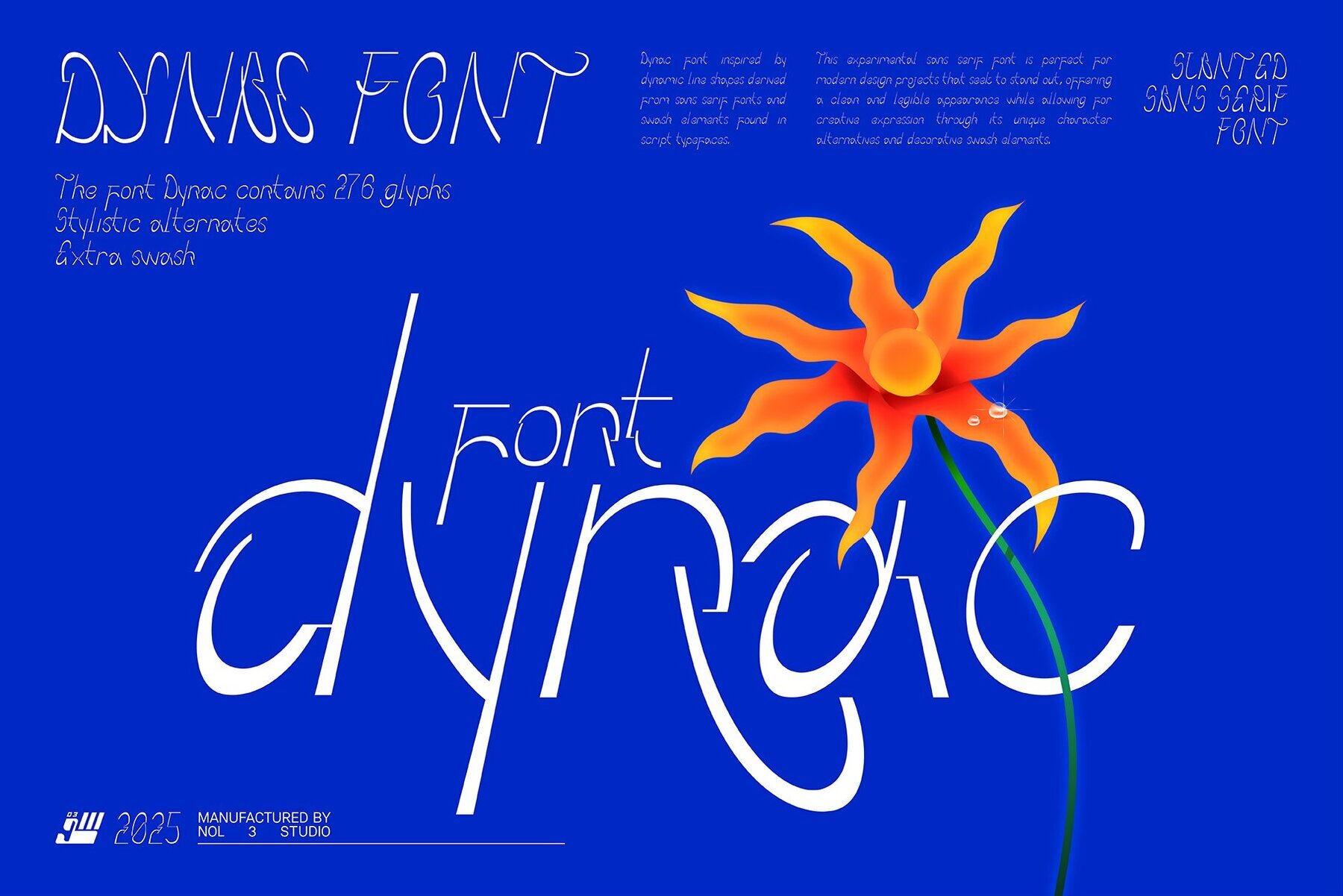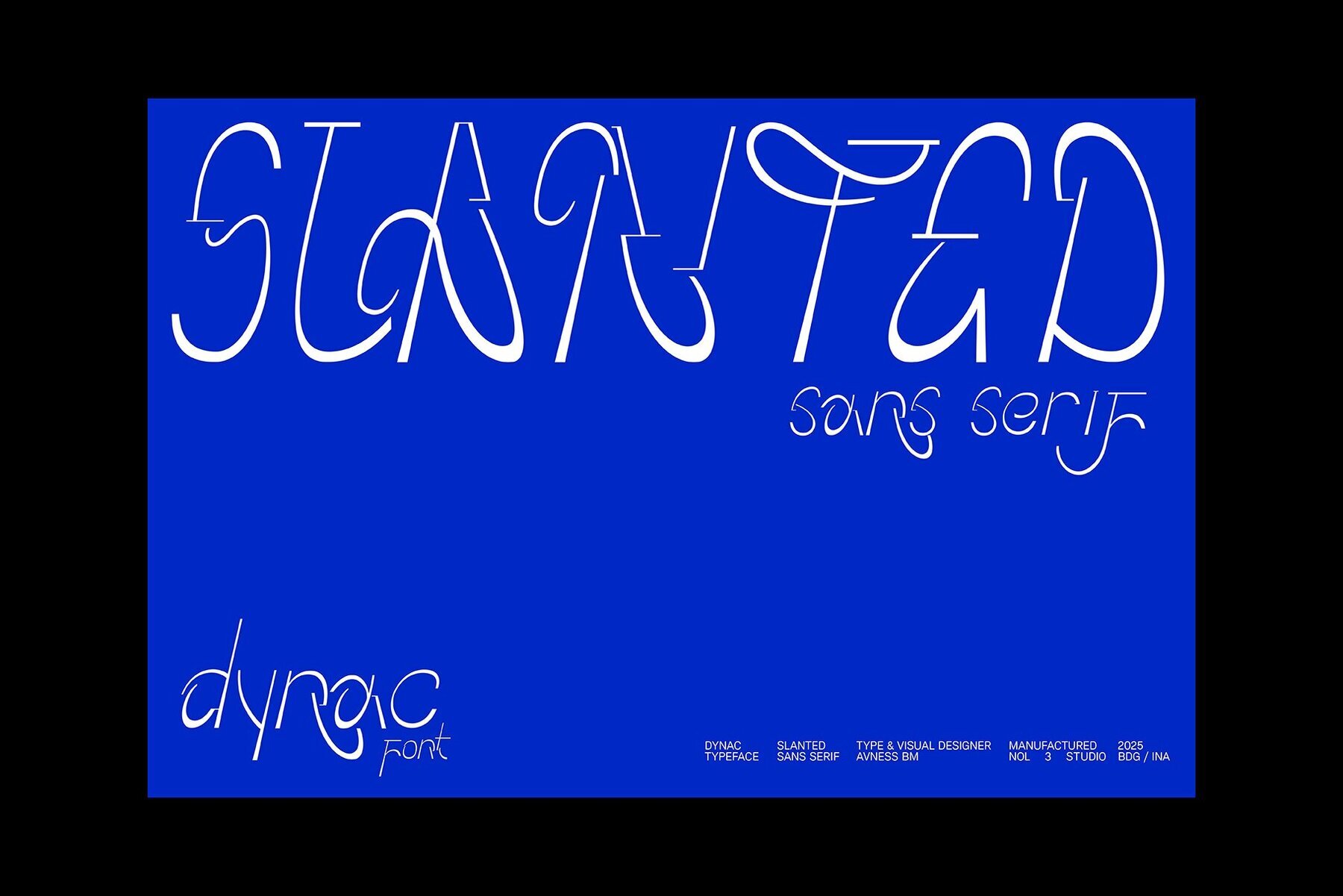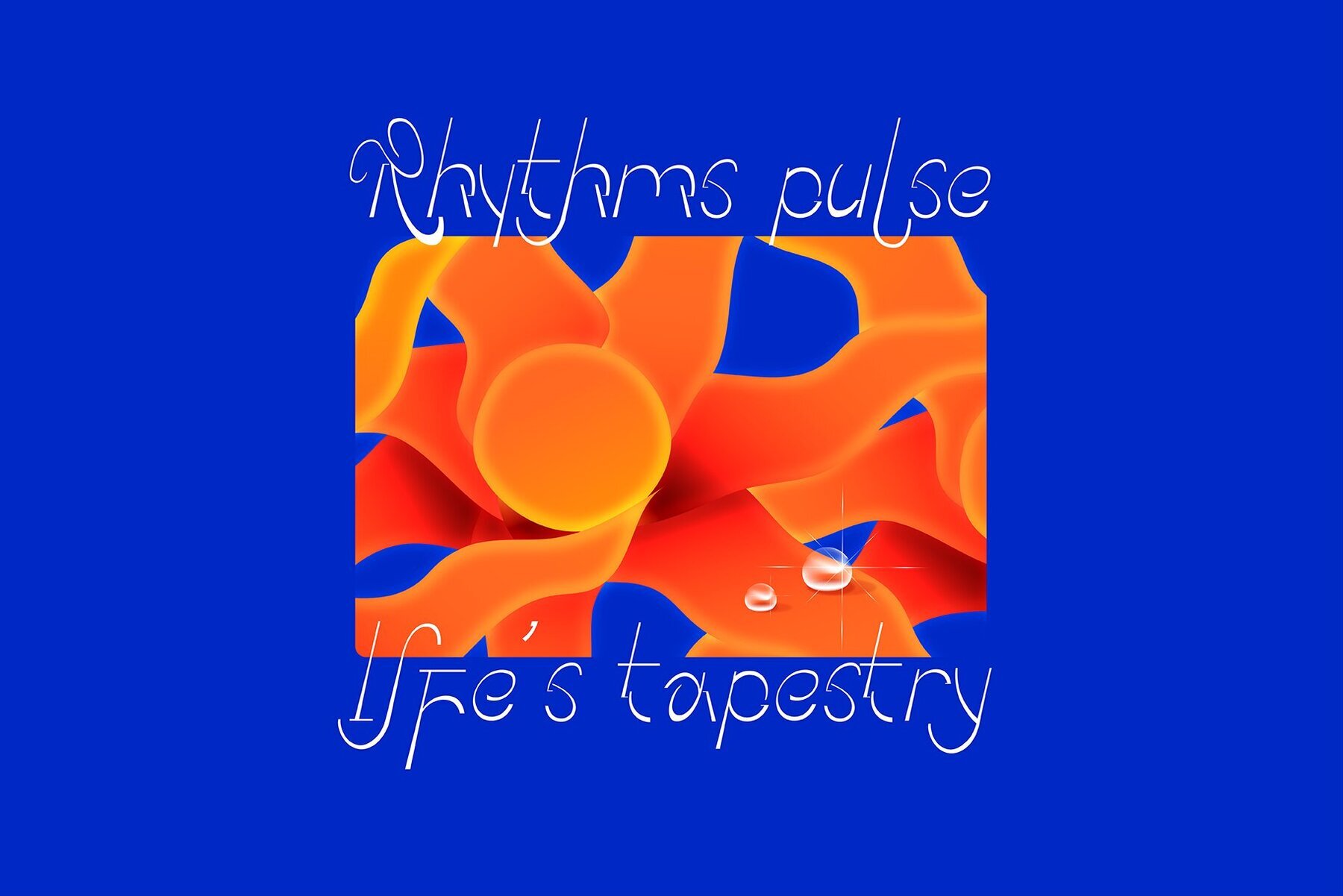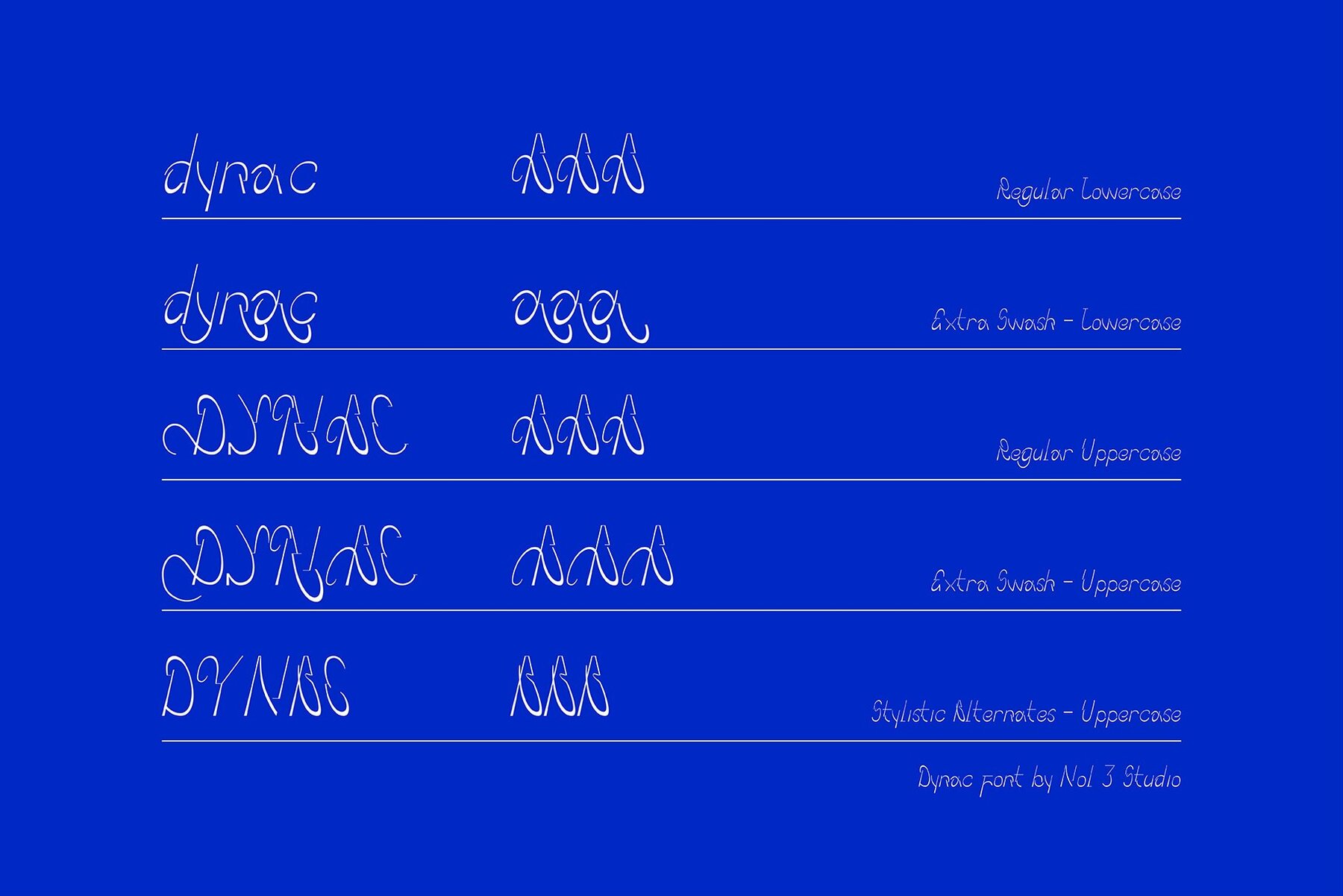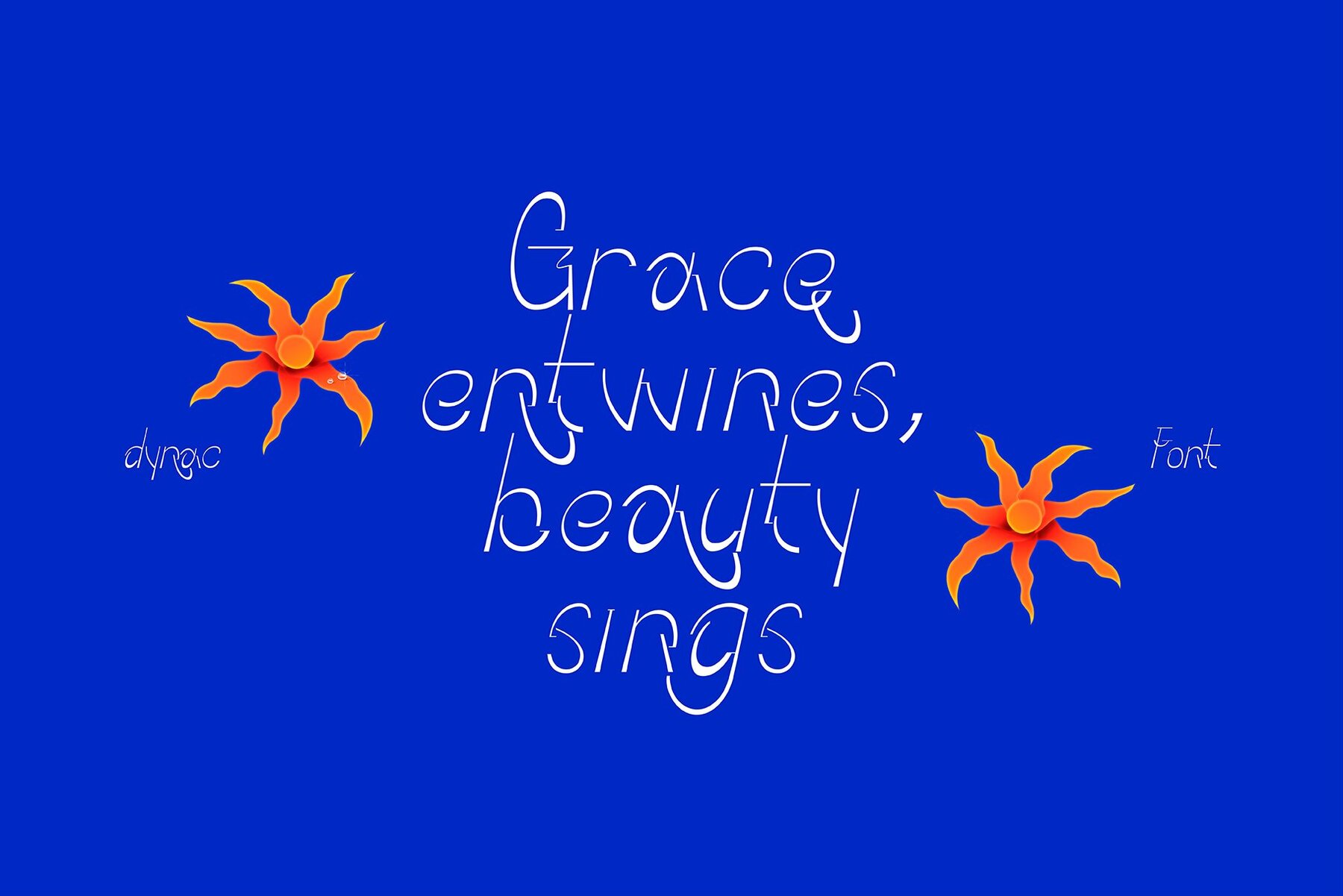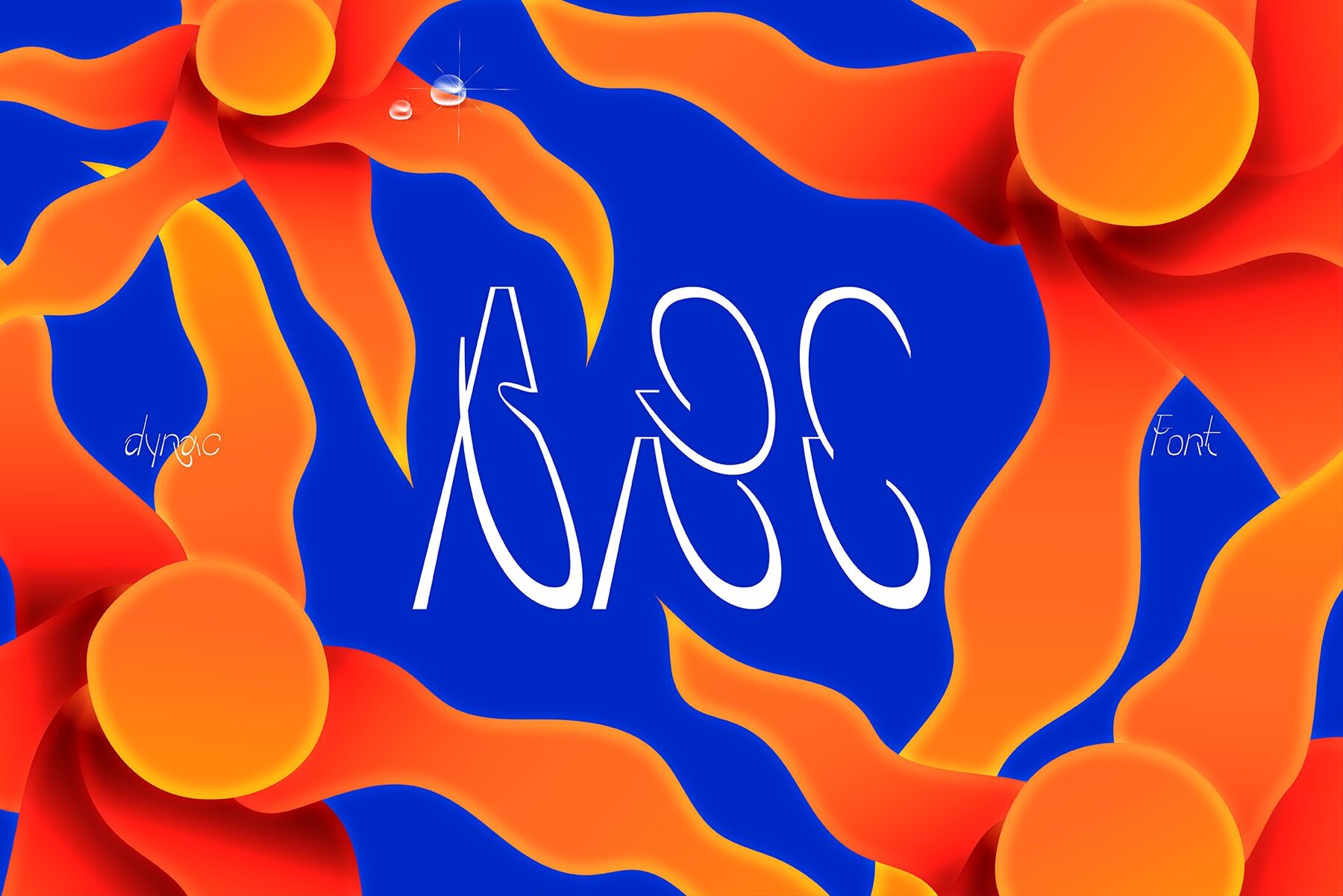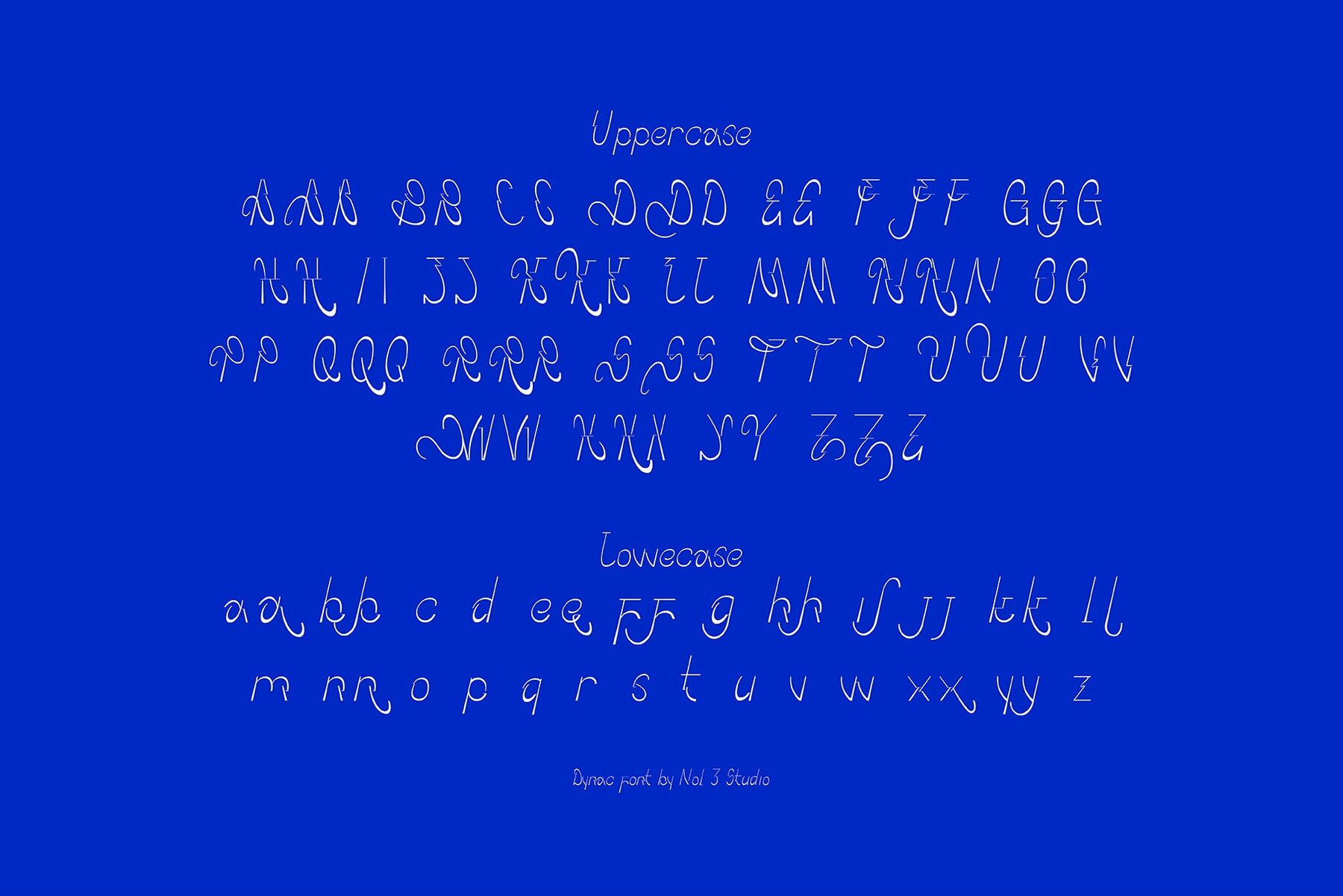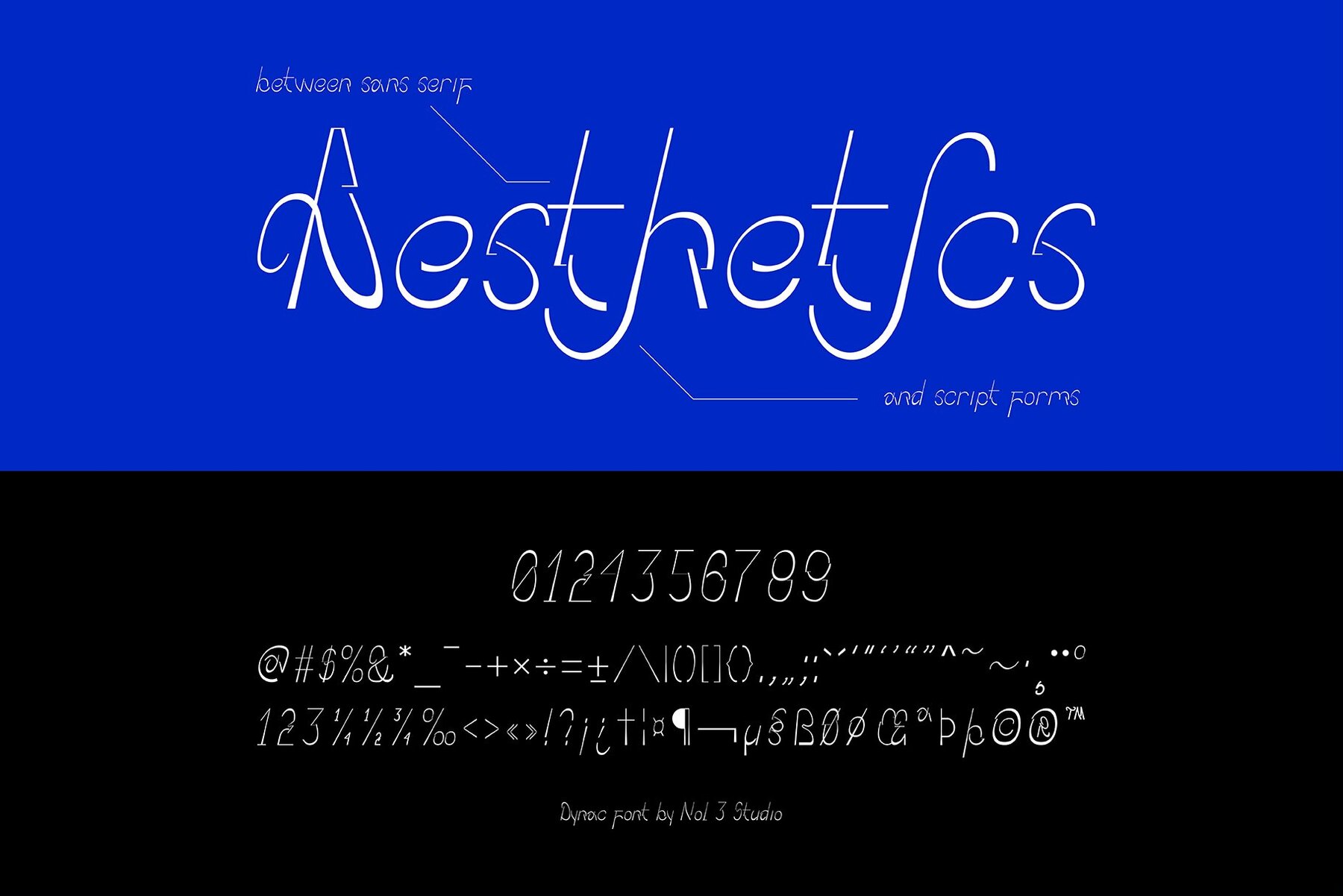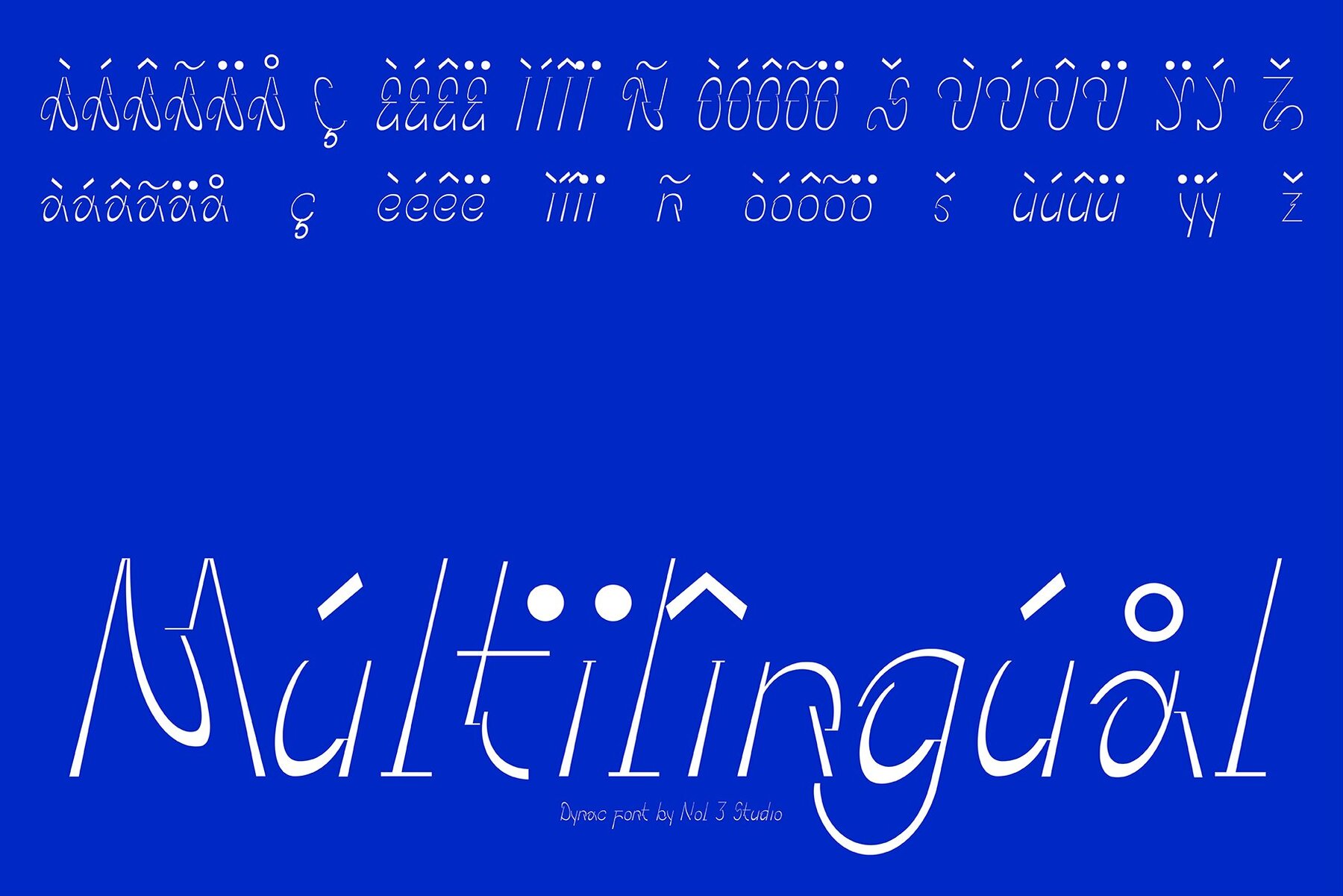
Dynac Font
Dynac Regular
The Dynac font breaks from tradition, marrying the sleek lines of sans serifs with the elegant curves found in script typefaces. This unique blend of elements results in a typeface that offers clean legibility without sacrificing character, making it particularly suitable for contemporary design projects. Dramatic slants and decorative swashes provide ample opportunity for creative expression, whether in branding, editorial layouts, or digital interfaces.Dynac: Versatile Slanted Sans Serif